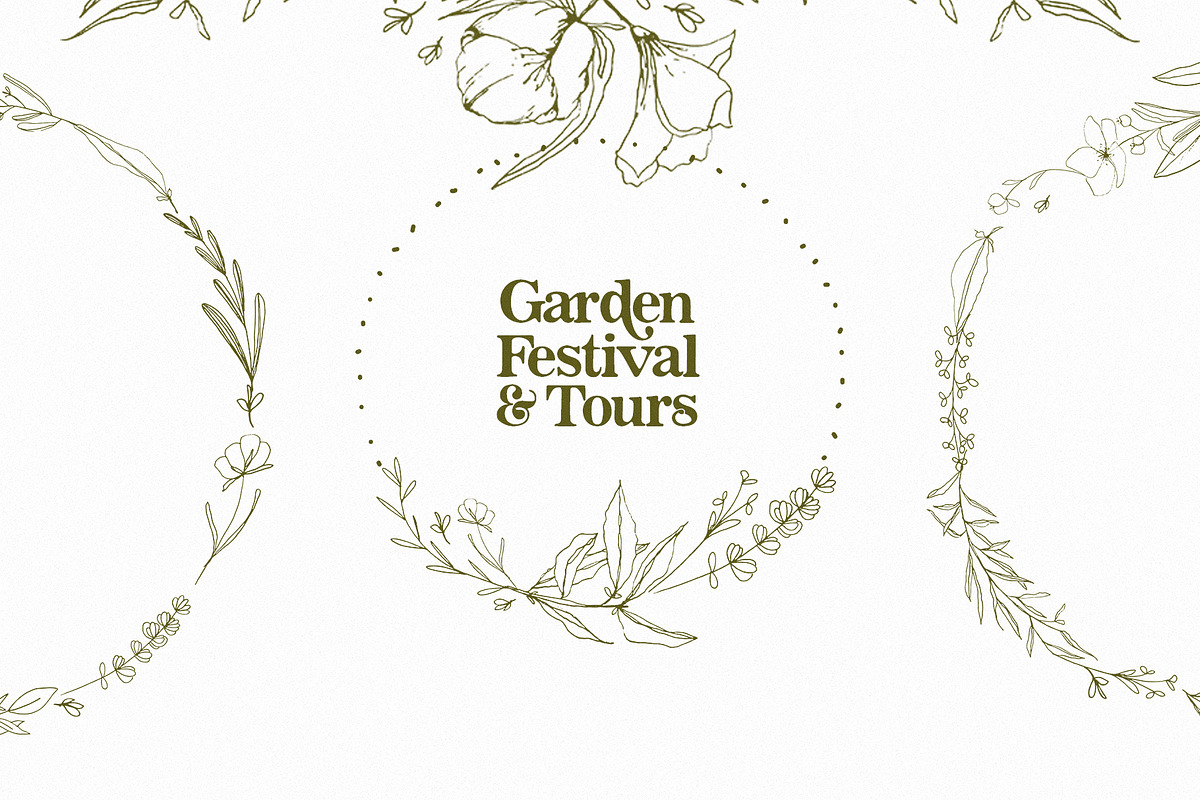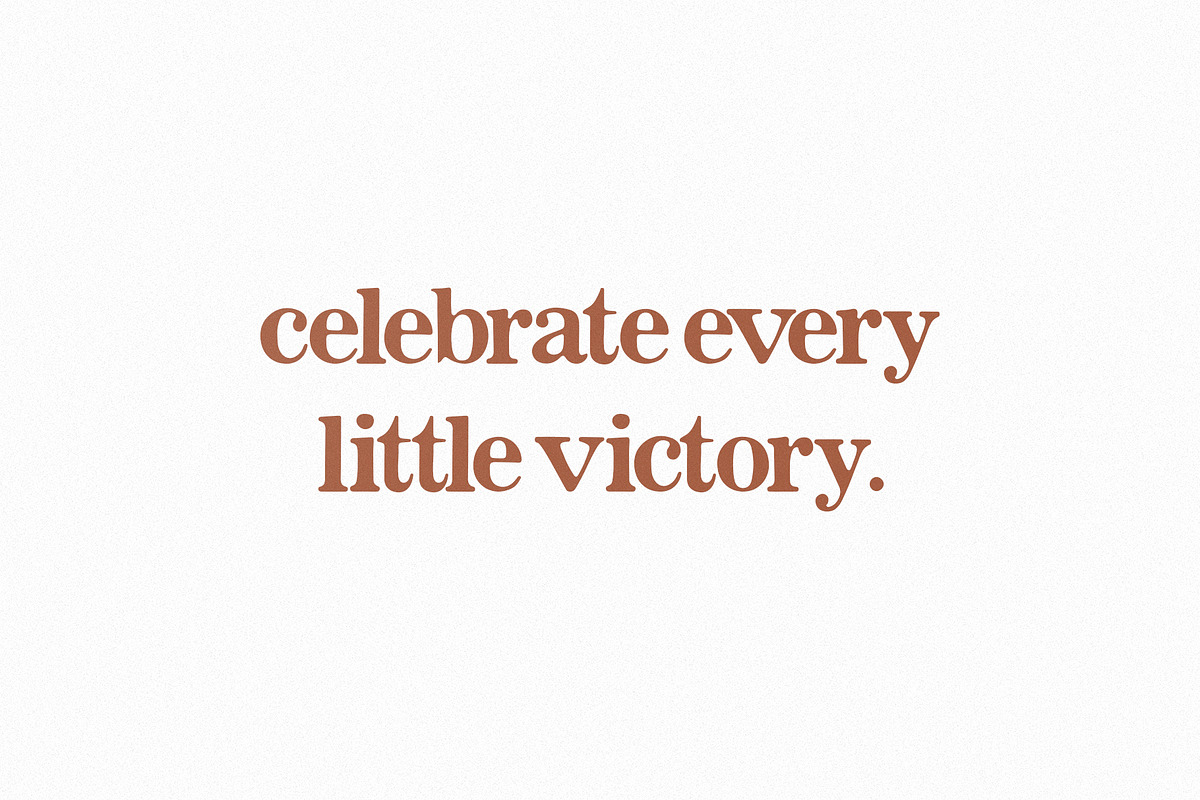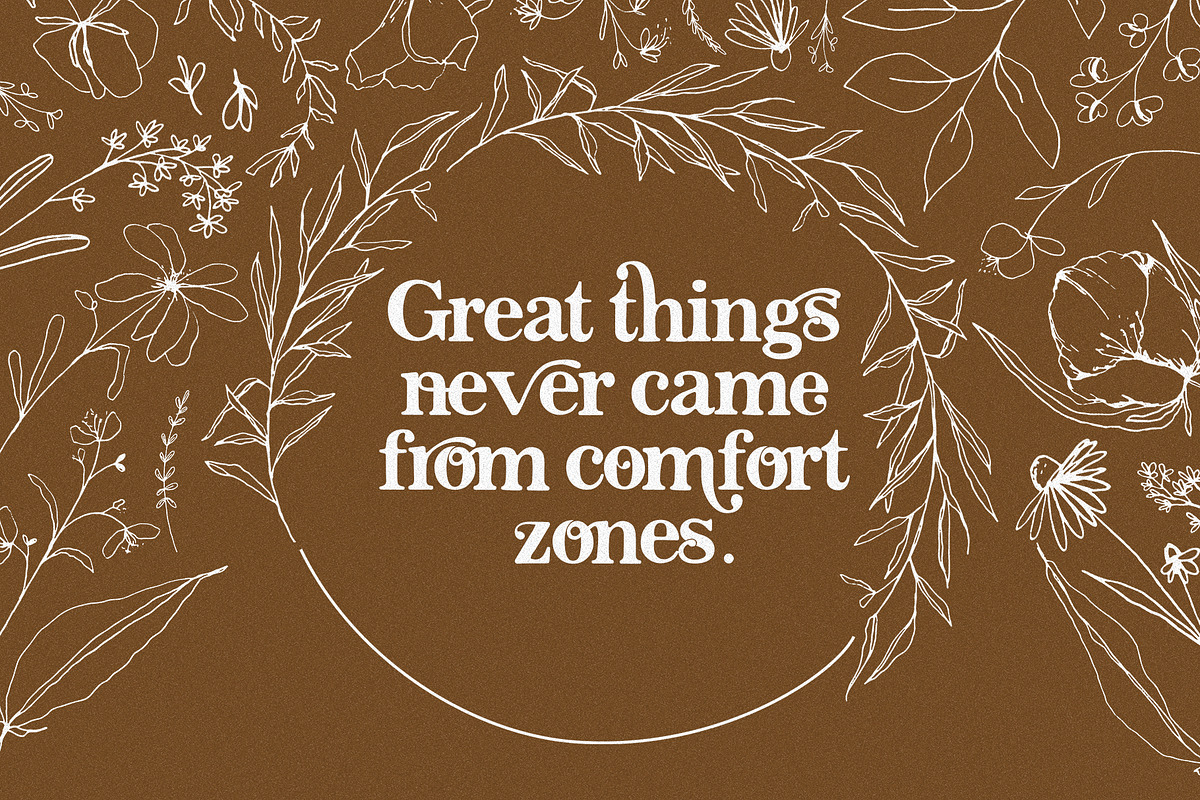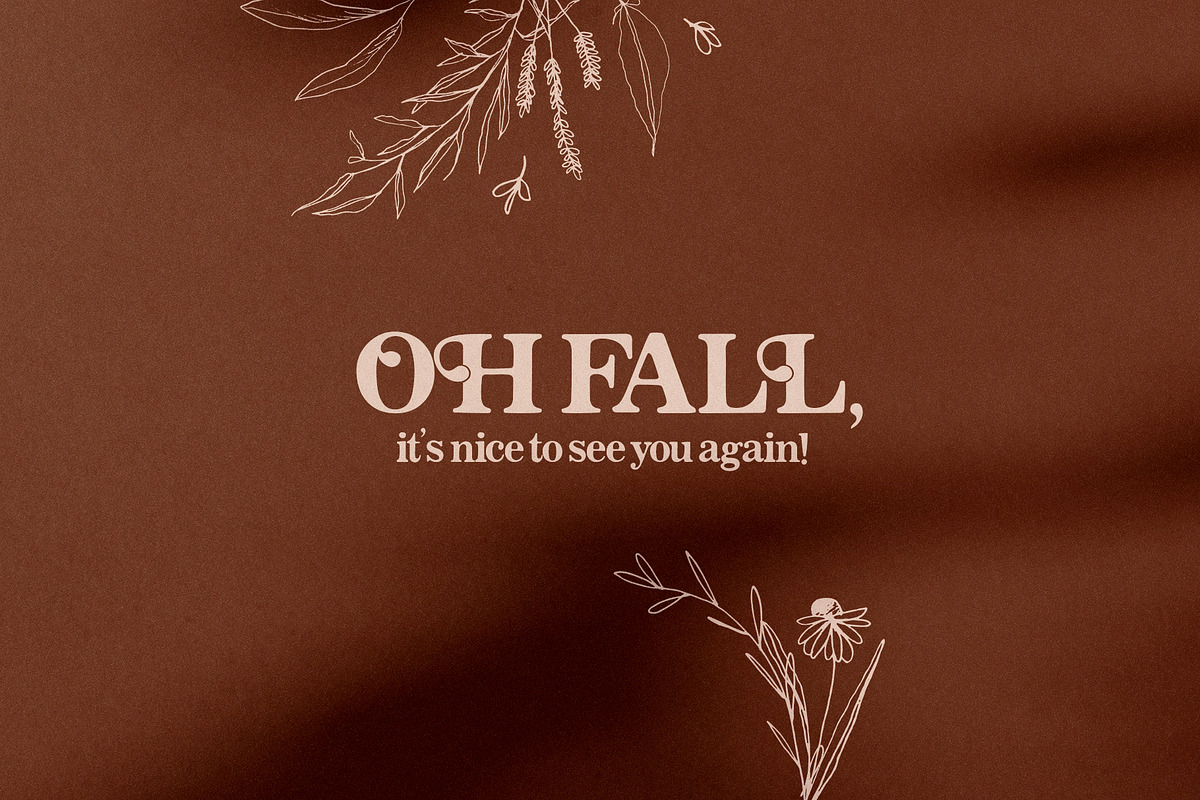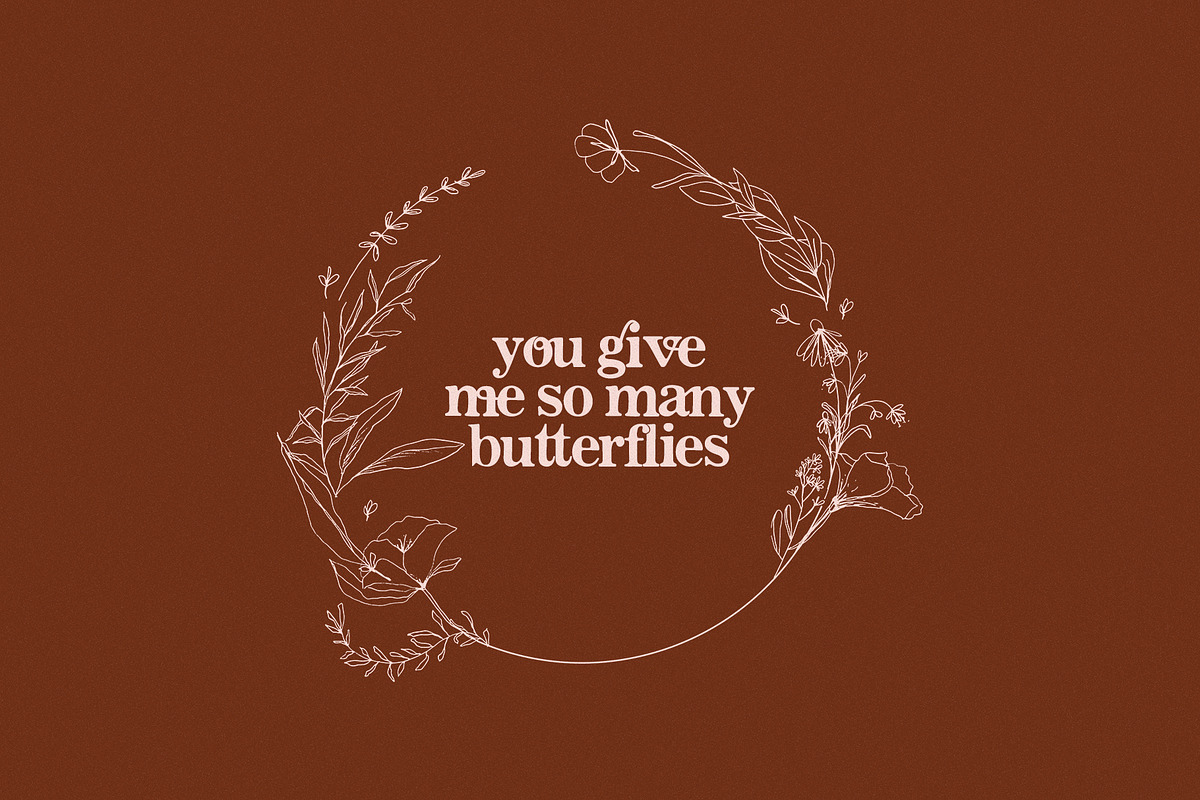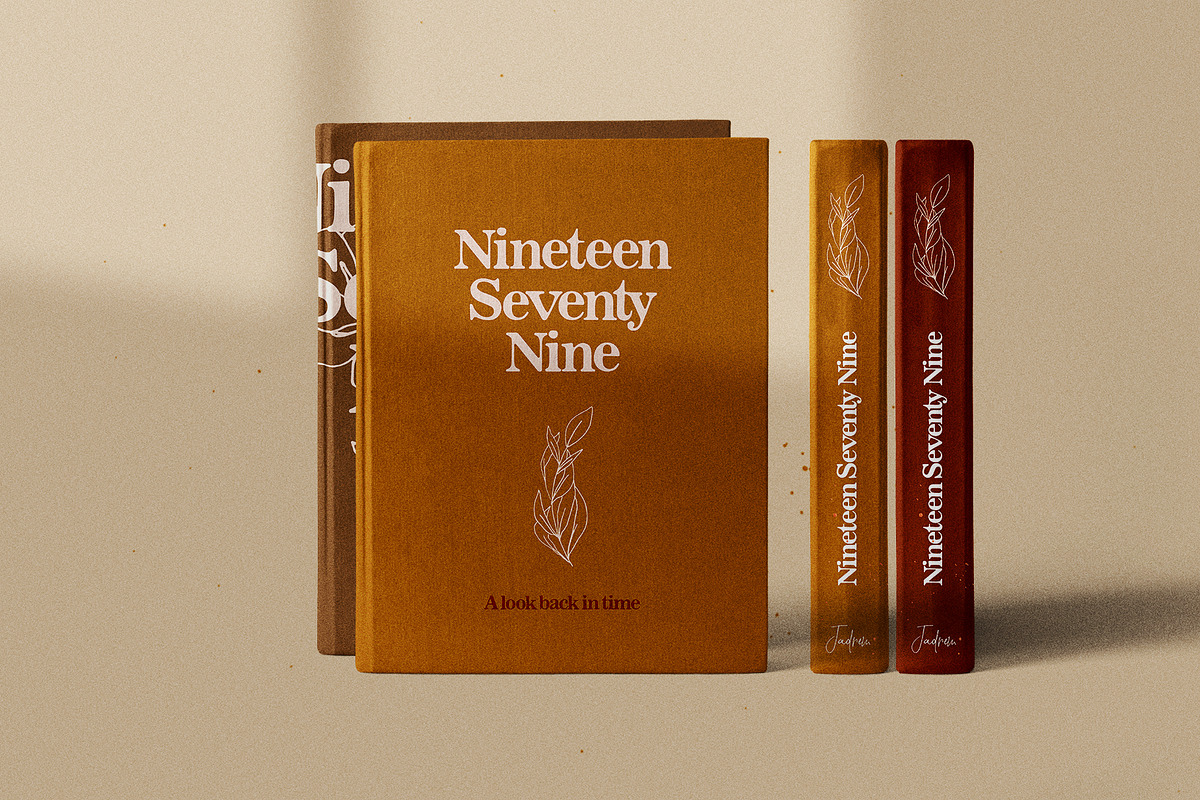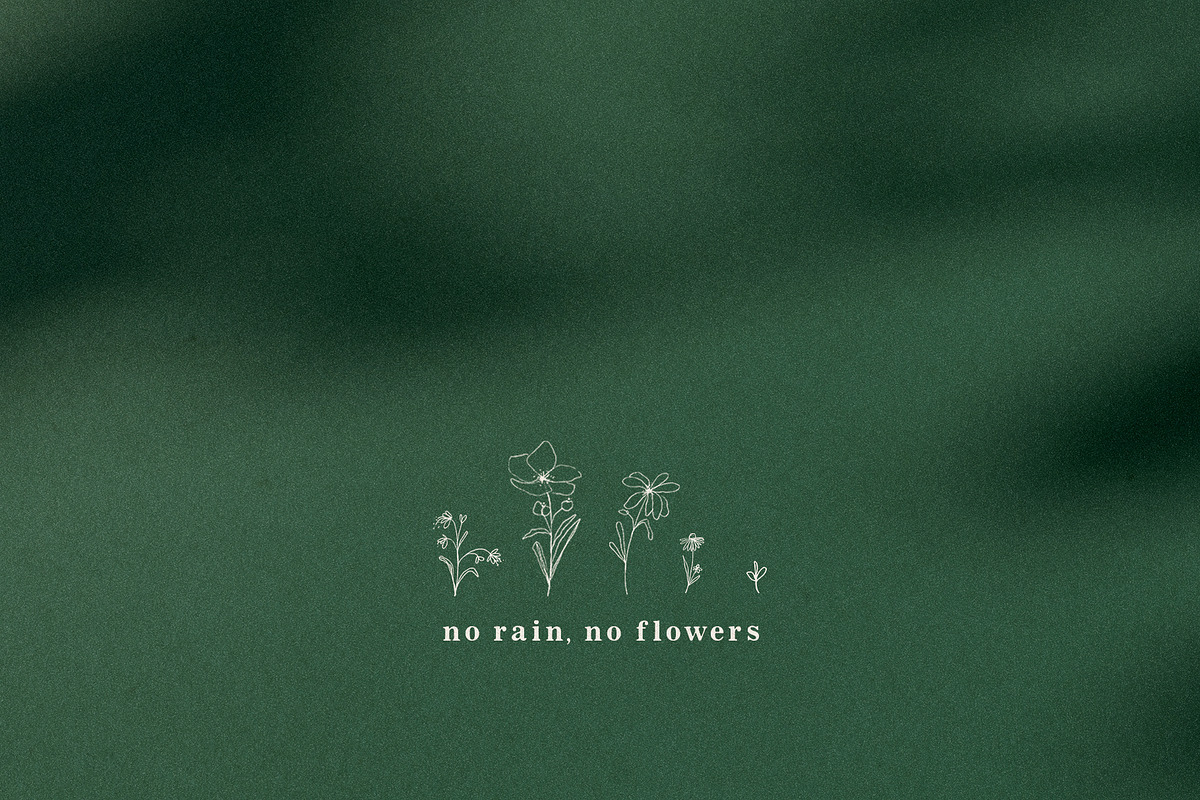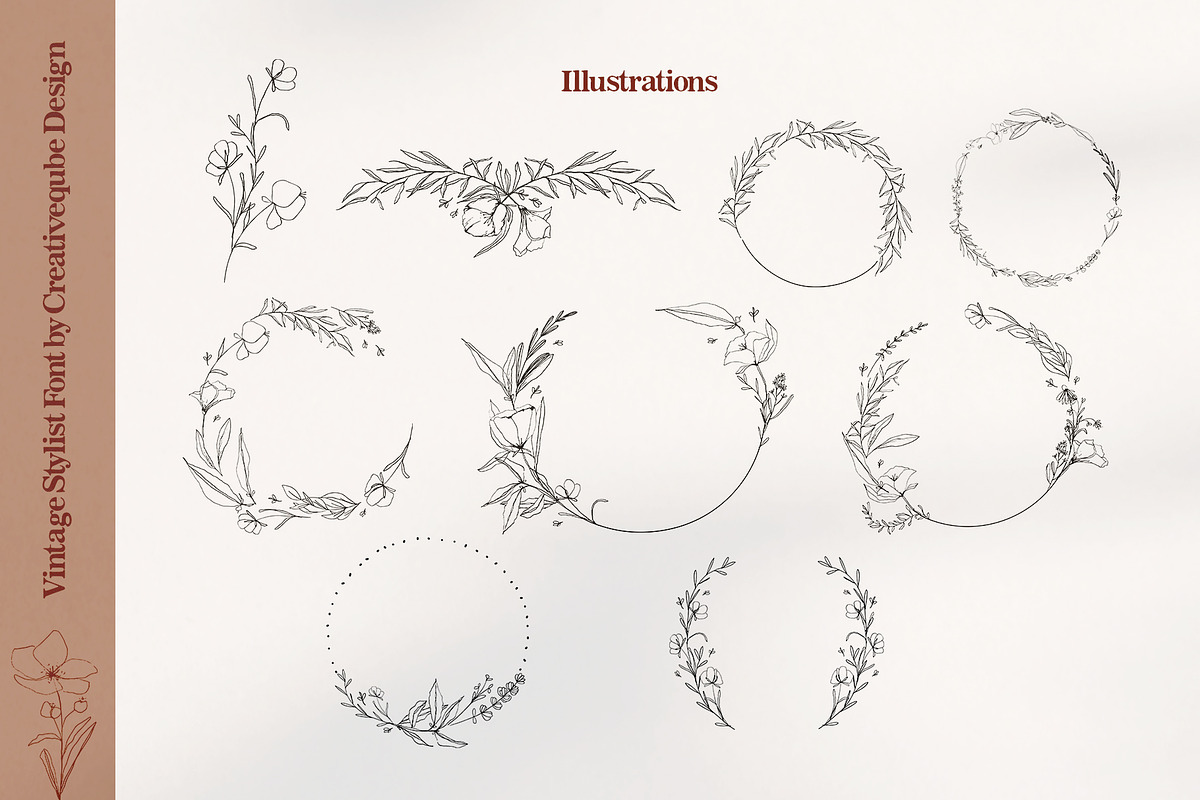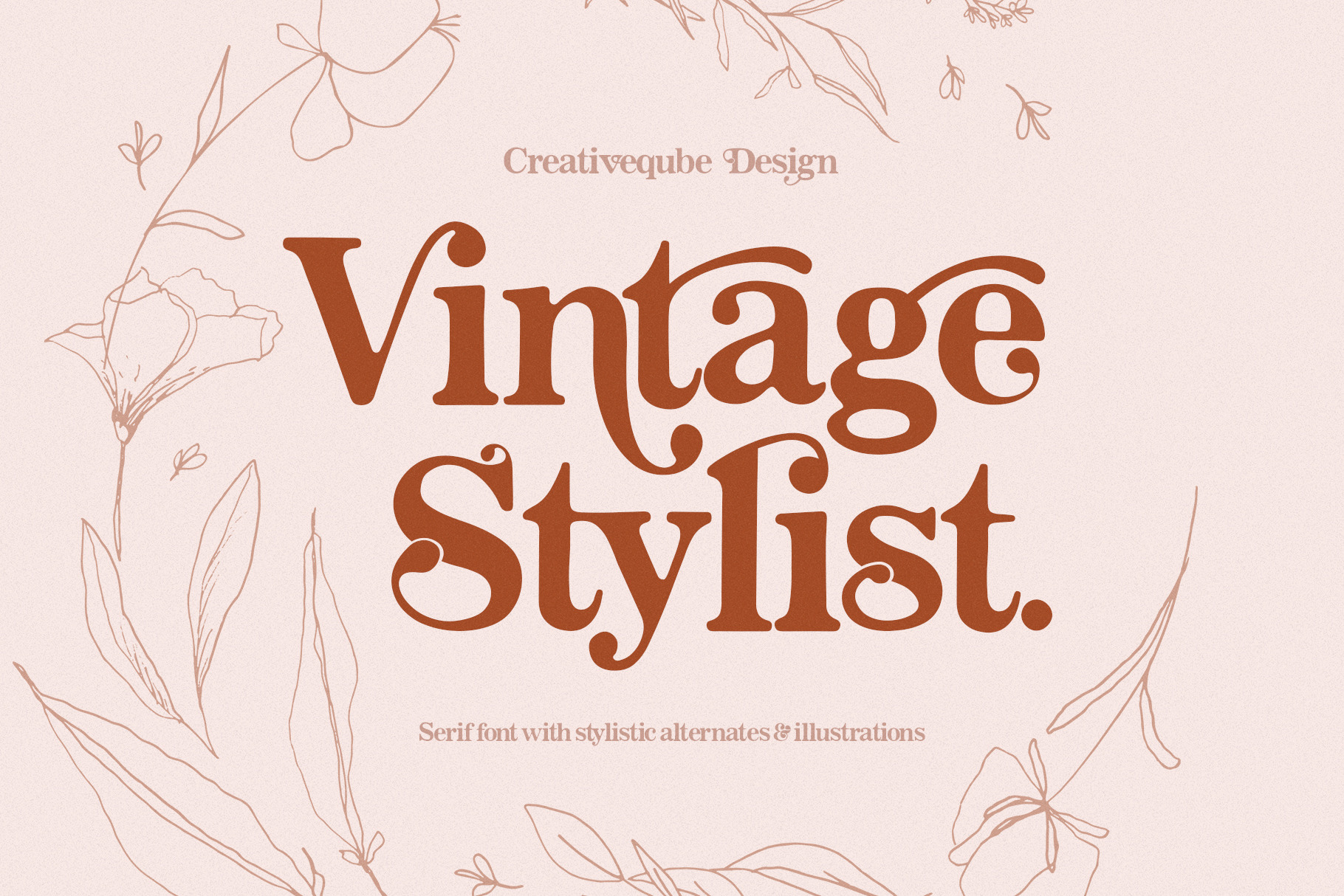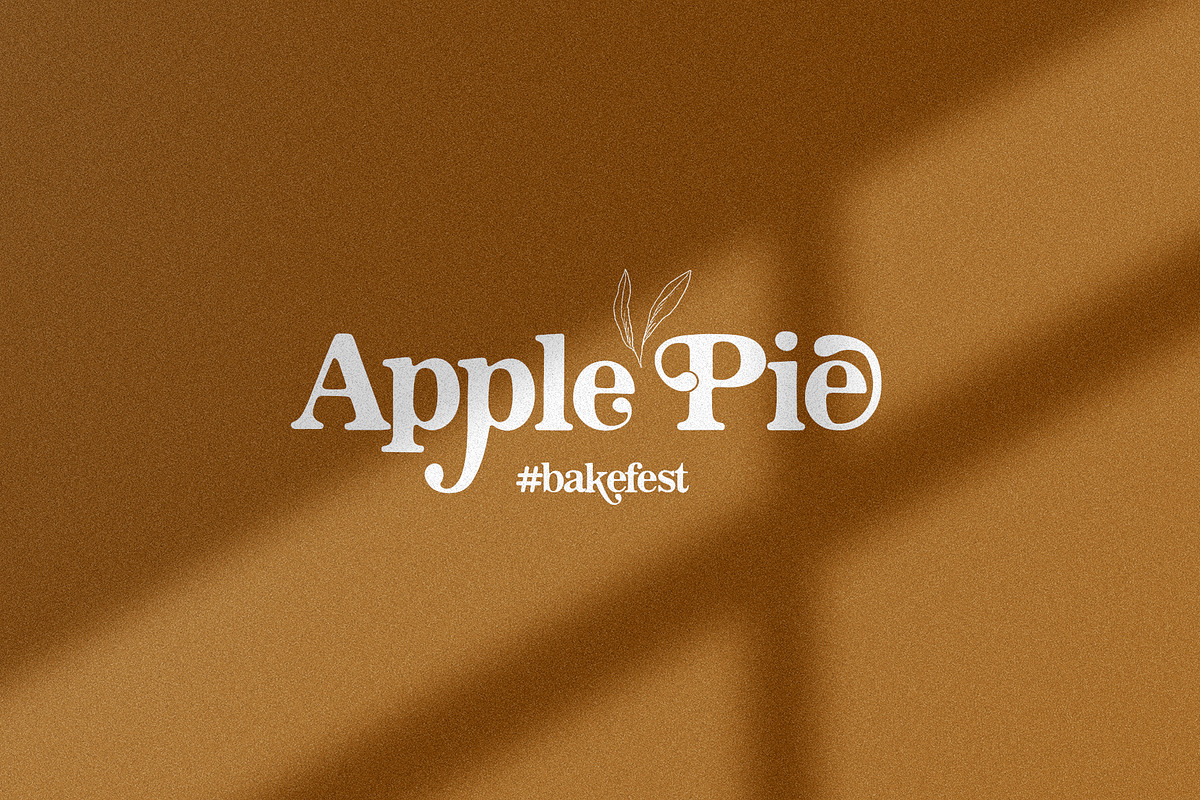
Vintage Stylist Font + Florals
Vintage Stylist is a modern vintage serif font loaded with alternates and ligatures that makes for stunning logos, quotes, wedding invites, blog posts, Instagram, and more!
Vintage Stylist includes a full set of lowercase and uppercase alternates for each letter, plus some extra ending letters, and a bunch of special ligatures.
I’ve also included almost 50 bonus floral illustrations, (PNG files) so creating your own unique logos, branding, cards, invites, and more will be a breeze!
- Regular Serif
- Alternates Serif
- Ligatures Serif
- Numbers + Punctuation
- International language support
- 49 floral line art illustrations